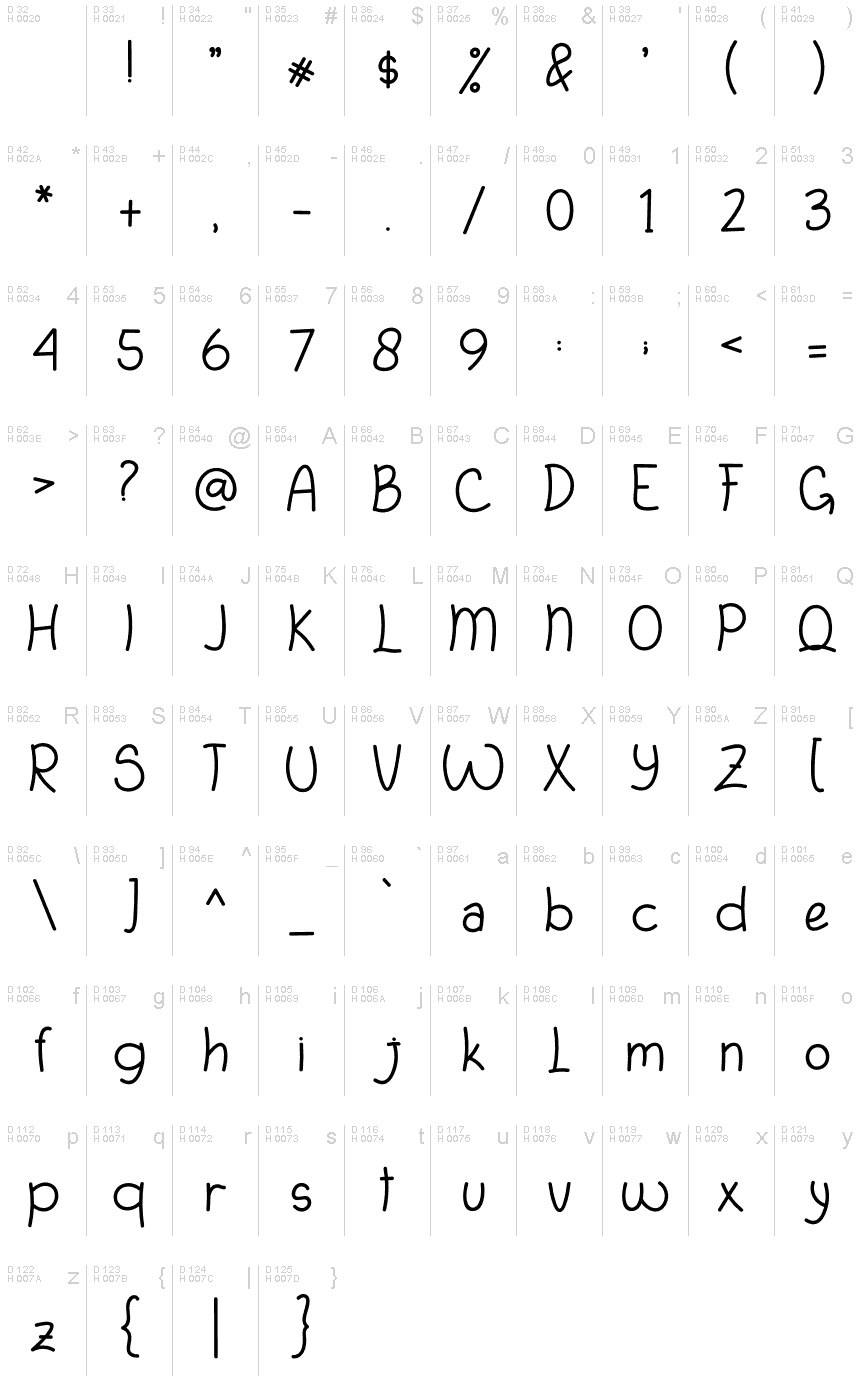
The Rainbow
Unleash the playful charm of "The Rainbow," a delightful creation by Etik Fatimah that brings a touch of whimsy to your design projects.
With its cute handwritten aesthetic and semi-light weight, this font exudes a friendly and approachable vibe, perfect for invitations, branding, or children's literature. The subtle irregularities in its characters mimic the authentic variations of natural handwriting, adding a personal and intimate feel to your work. Whether you're crafting heartwarming greeting cards or spicing up social media content, "The Rainbow" font infuses your designs with joyous personality and creative flair.
Embrace its versatility and let "The Rainbow" make your messages shine brightly across diverse platforms.